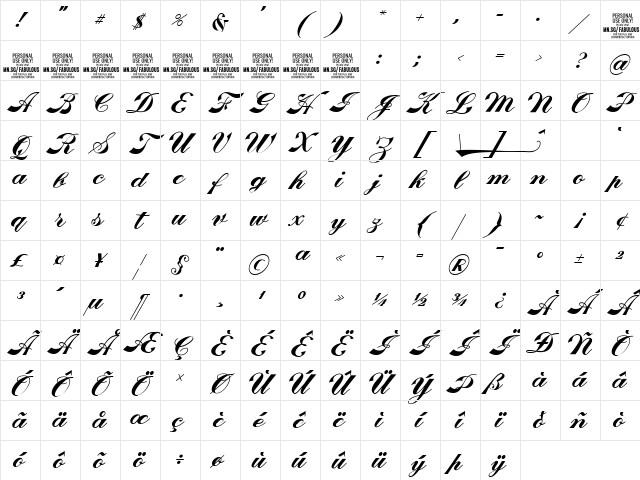
Fabulous PERSONAL USE Regular Free Font
Fabulous PERSONAL USE Regular
Foundry: M￿ Greb￿
Designer: M￿ Greb￿
Design Context for Fabulous PERSONAL USE
Fabulous PERSONAL USE is a composed and adaptable typeface that performs quietly and consistently across a wide range of design contexts.